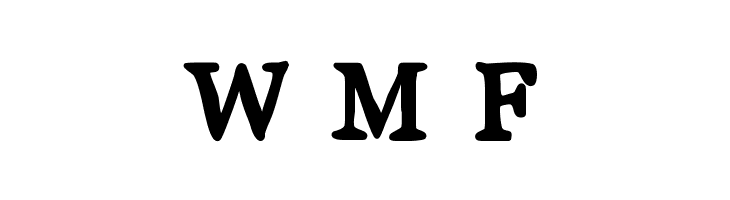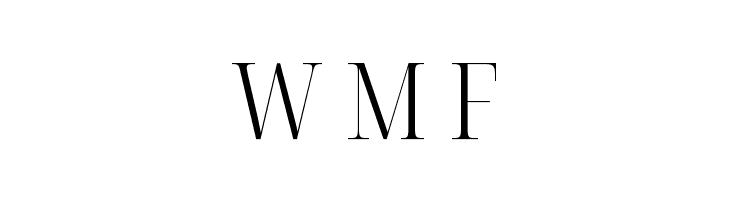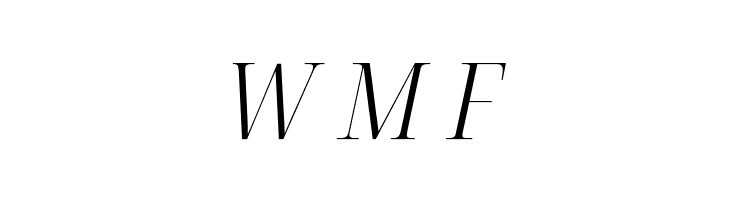
A classic serif font with medium contrast and rounded serifs, offering a vintage yet modern appeal.
A classic serif typeface with elegant serifs and balanced proportions.
A light, semi-condensed serif font with clean and modern characteristics.
A light serif font with elegant strokes and a classic appearance.
Medium-weight serif font with classic, readable forms.
A refined, light serif font with a condensed and elegant style.
A semi-condensed serif font with moderate contrast and classic elegance.
A refined, condensed serif font with a light, italic style.
An extra condensed, extra bold font with high contrast and strong visual impact.
A bold, condensed serif typeface with a classic yet modern appeal.
A refined serif typeface with extra-condensed letterforms and high contrast strokes.
A classic serif typeface with a semi-condensed, medium weight and moderate contrast.
A clean, readable serif font with elegant lines and balanced structure.
A refined serif typeface with thin strokes and a semi-condensed structure.
A clean and structured serif font with balanced letterforms and subtle serifs.
A bold and robust font with thick strokes and a strong presence.
A bold, extra-condensed serif font with high contrast and sharp serifs.
A refined, thin, and italic serif font with a condensed style.
A classic serif font with semi-bold weight, offering clarity and professionalism.
A classic serif font with a semi-condensed structure, offering elegance and readability.
A bold, extra condensed font with strong visual impact and modern elegance.
A classic serif font with extra-condensed, semi-bold letterforms.
An elegant serif typeface with a semi-condensed, extra light italic style and high contrast strokes.